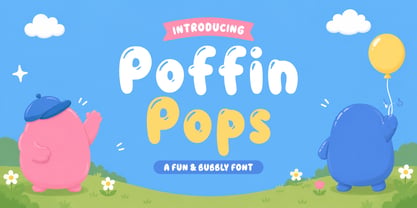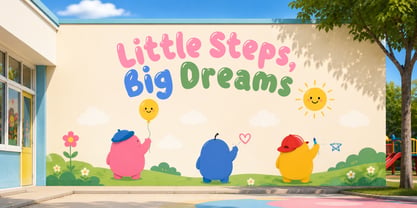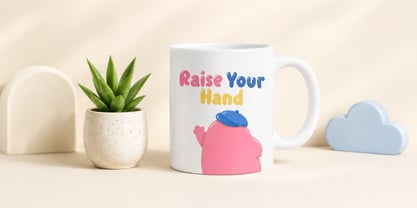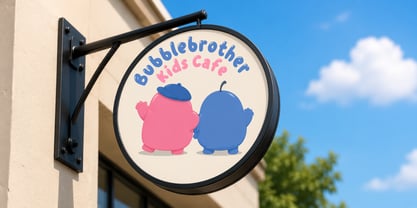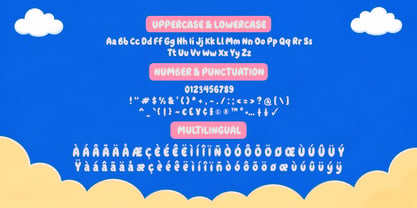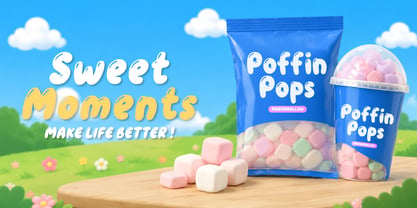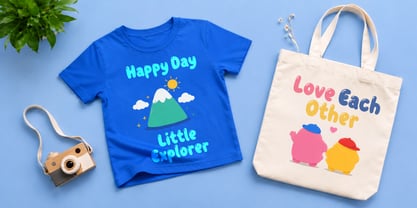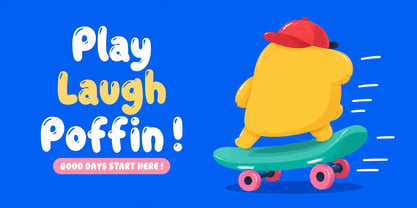
Poffin Pops
The Poffin Pops Font Family was designed by Wahyu Eka Prasetya, Dian Angga Marytama and published by Letterytz CalliType. Poffin Pops contains 2 styles and family package options. More about this family
Poffin Pops is a fun, bubbly display font designed to bring smiles to every project. Featuring chunky rounded letterforms, playful hand-drawn curves, and a soft organic look, this font instantly creates a cheerful and welcoming atmosphere. Perfect for children's books, toy packaging, snack branding, school materials, birthday invitations, logos, posters, social media, stickers, apparel, and creative merchandise, Poffin Pops delivers a friendly personality with excellent readability.
Whether you're creating playful branding or eye-catching headlines, Poffin Pops adds warmth, happiness, and irresistible charm to every design. Its handcrafted appearance makes it an ideal choice for designers looking for a unique display font that feels authentic, cute, and memorable.
Features
• Uppercase & Lowercase
• Numbers & Punctuation
• Multilingual Support
• Stylistic Alternates
• Regular & Slant
Perfect For
• Children's Books
• Kids Branding
• Toy Packaging
• Snack & Food Packaging
• School Projects
• Posters
• Logos
• Stickers
• T-Shirts
• Greeting Cards
• Social Media Graphics
• Merchandise